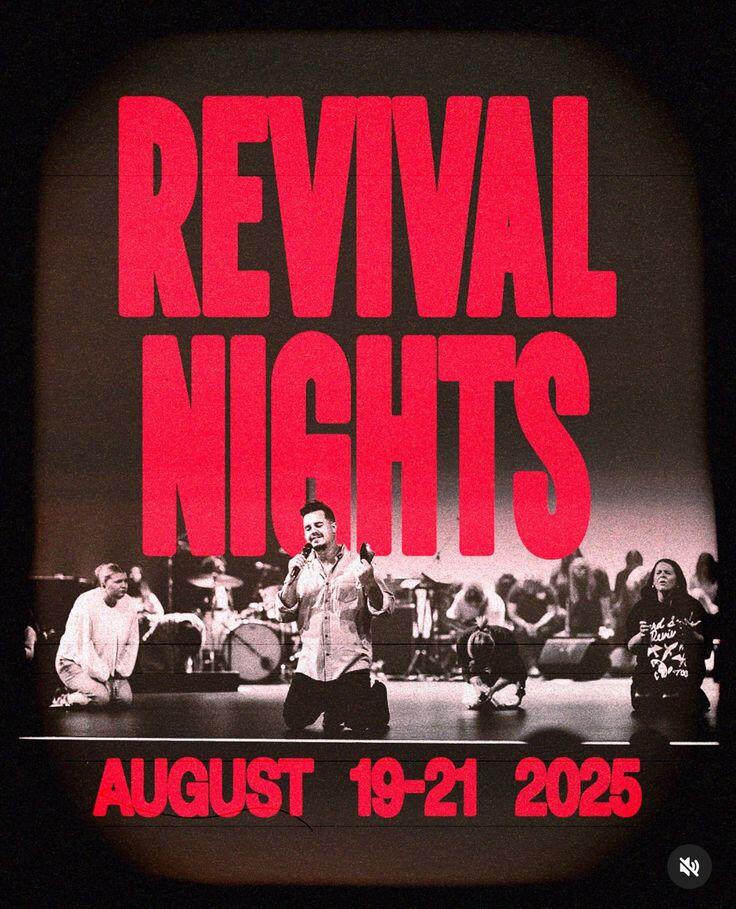
Two fonts in Revival Nights promo
Looking to identify the font used for "Revival Nights" and the other used for the date at the bottom. My suspicion is there is a thicker stroke/outer glow used around the edge and a grainy texture over the whole image, so it's making it a little challenging for me to identify. Hoping someone can help me figure this out!!